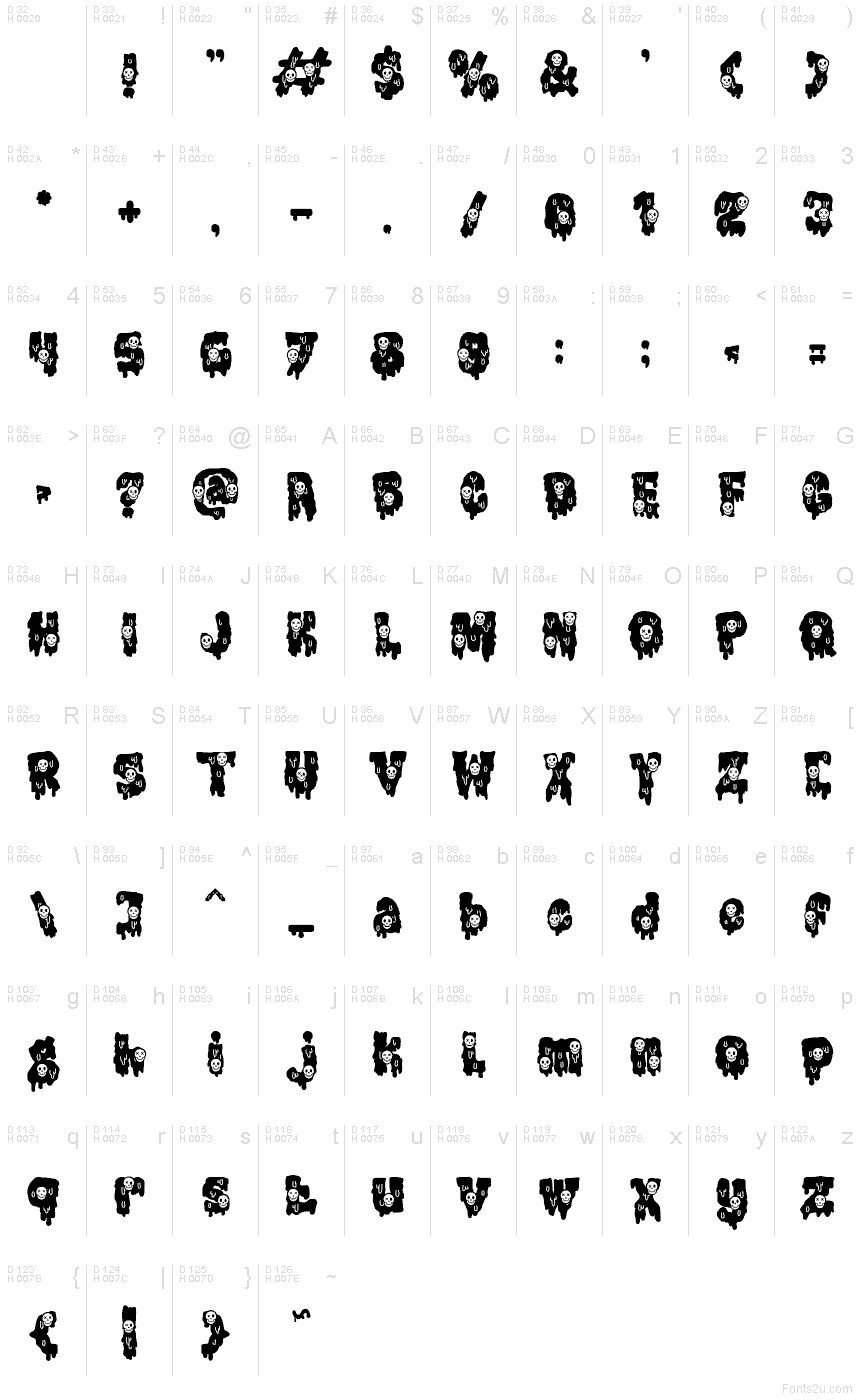
Gothic Haunt Skull
Gothic Haunt Skull font by PutraCetol Studio is a free Halloween display font. Part of the Gothic Haunt family, it splashes letters into inky, dripped silhouettes dotted with playful skull cameos, landing between creepy and cute. The strokes feel gooey and hand-cut, yet the roomy spacing and bold weight keep headlines readable from a distance.
Using Gothic Haunt Skull, your seasonal designs immediately signal “spooky fun.” It shines on party flyers, haunted house posters, treat-bag labels, YouTube thumbnails, stickers, and social banners. This free font’s bouncy rhythm adds motion without needing extra effects. Pair it with a clean, understated sans for dates and details, and keep sizes large to let those skulls grin back at viewers.